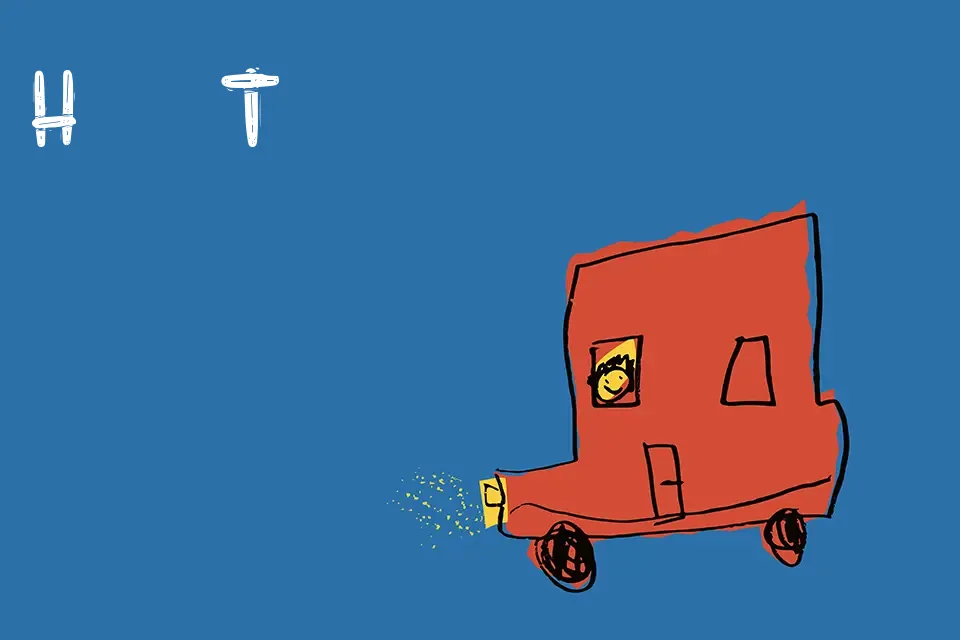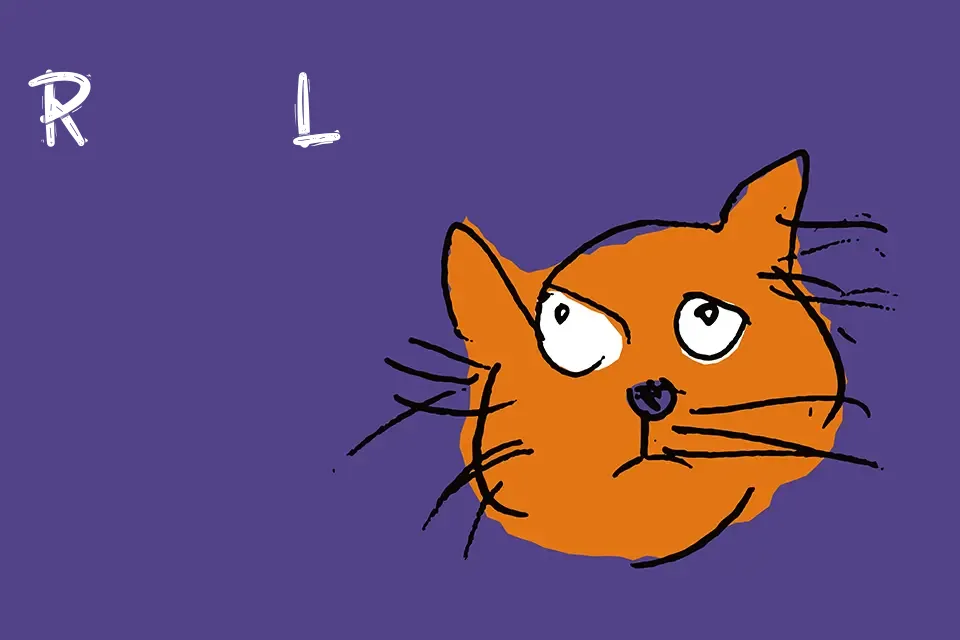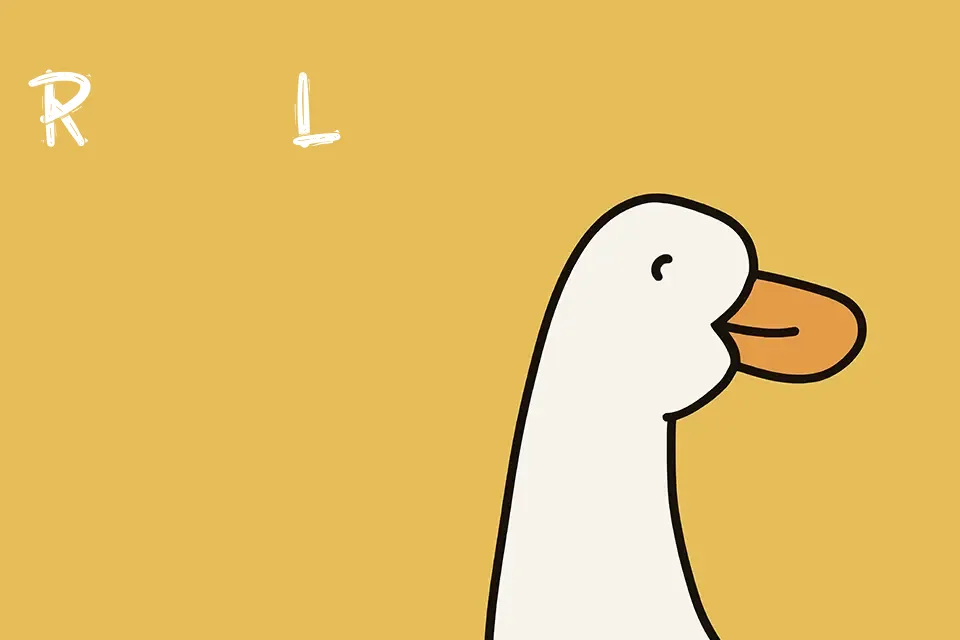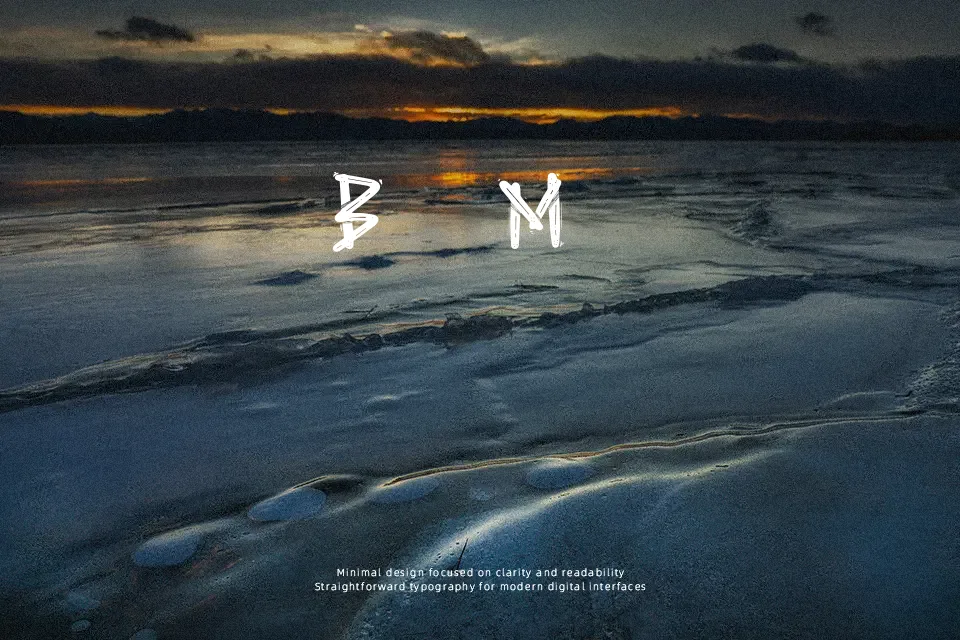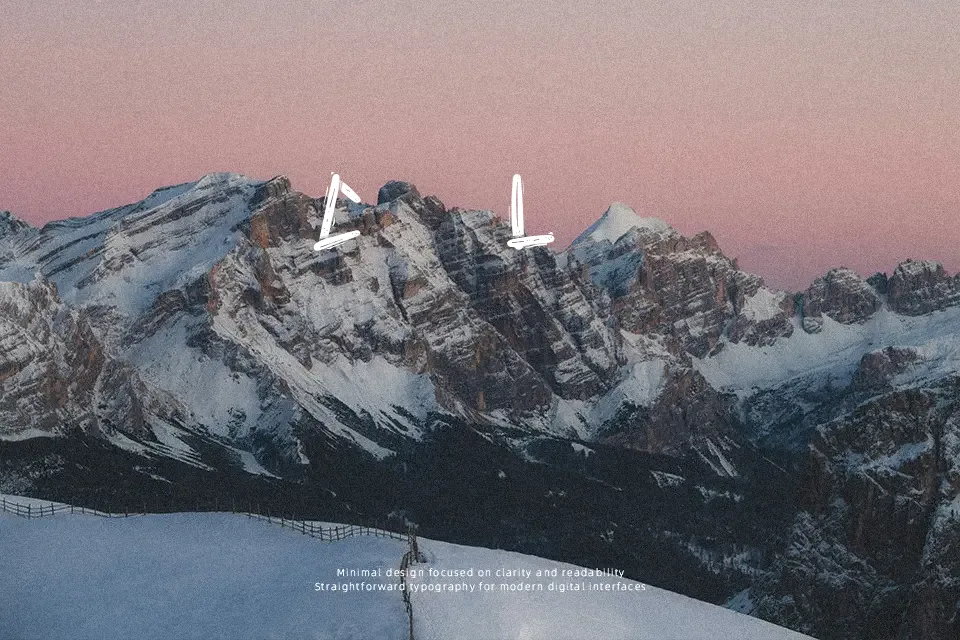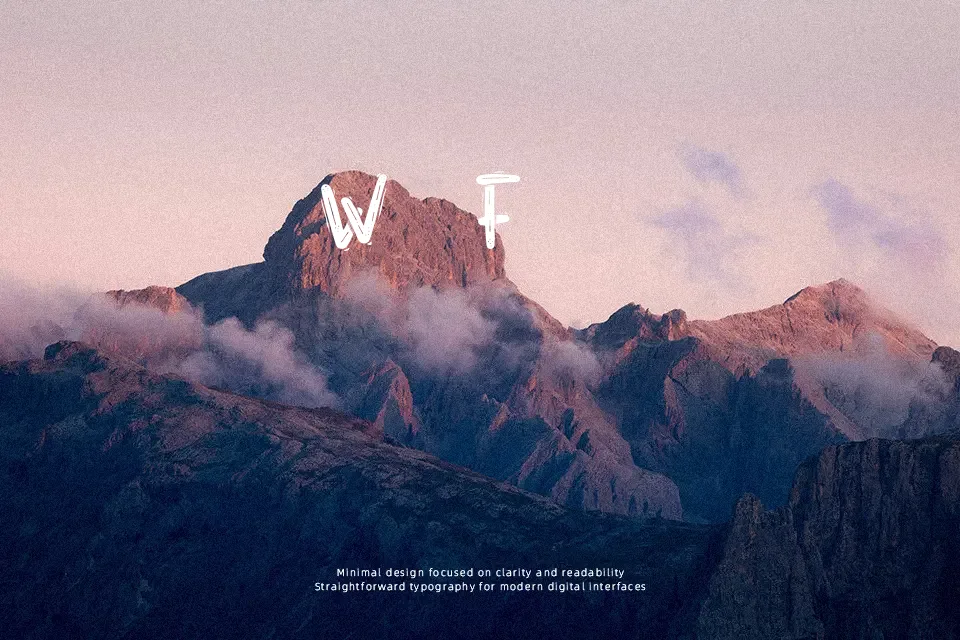
Rabsy Font
The bold, hand-drawn letterforms of Rabsy Font perform best when displayed at larger sizes where their playful energy can truly stand out. This decorative typeface features uneven strokes, exaggerated angles, and a slightly rough finish that gives the design a dynamic, informal rhythm. The textured edges and informal structure make the characters visually engaging for creative applications, but these same decorative details become less effective at smaller text sizes. While the spacing helps maintain clarity in large headlines, dense paragraphs and continuous reading scenarios will suffer from reduced readability. Because of its highly expressive structure, the design is an excellent choice for children’s books, vibrant posters, and lively packaging, delivering a strong visual impact in short bursts of text.
children’s book covers
lively event posters
playful toy packaging
vibrant apparel graphics
Perfect for kids, logo, and packaging, with a bold and brush style.